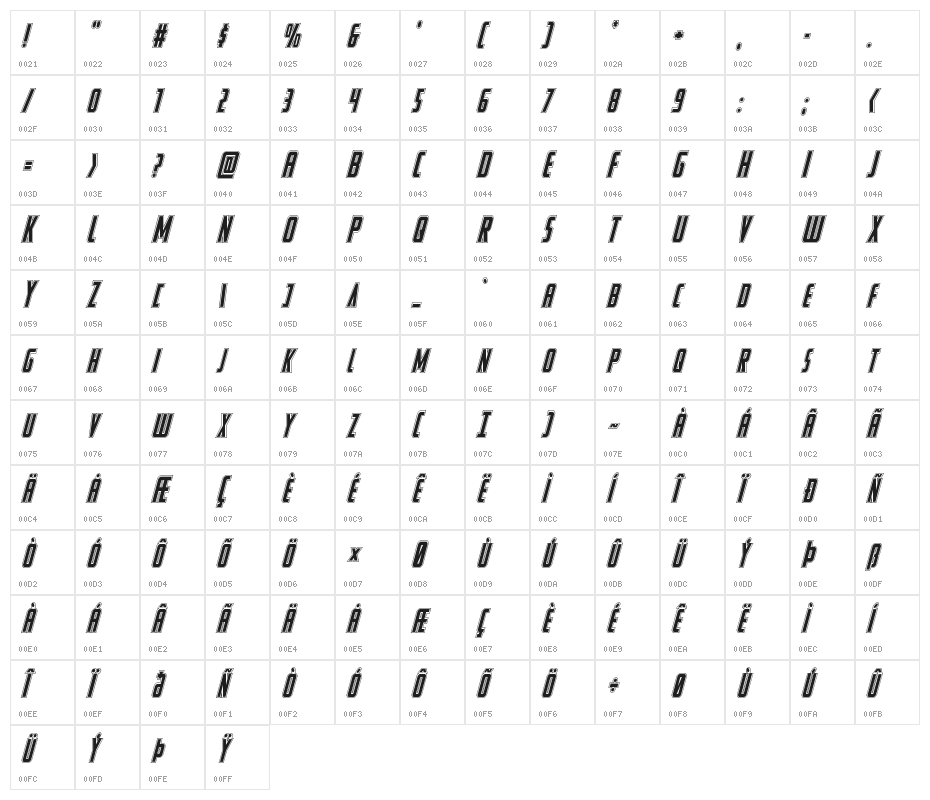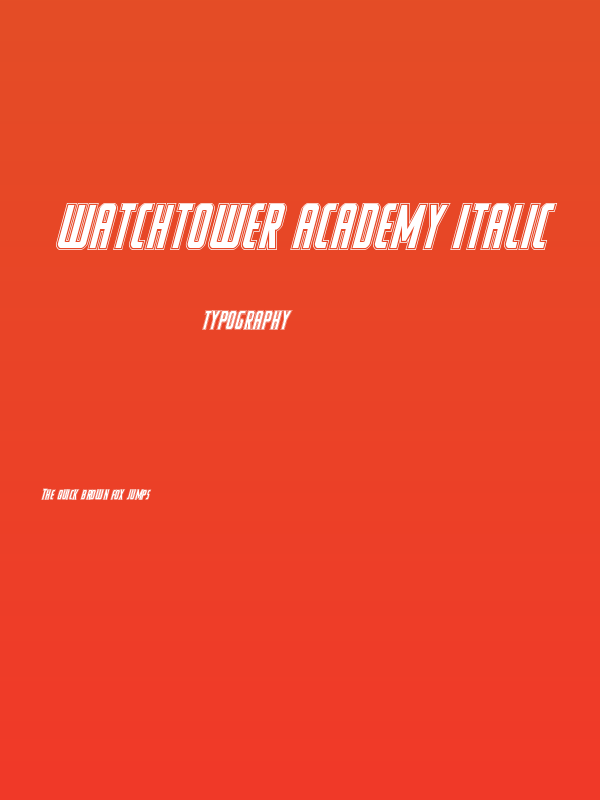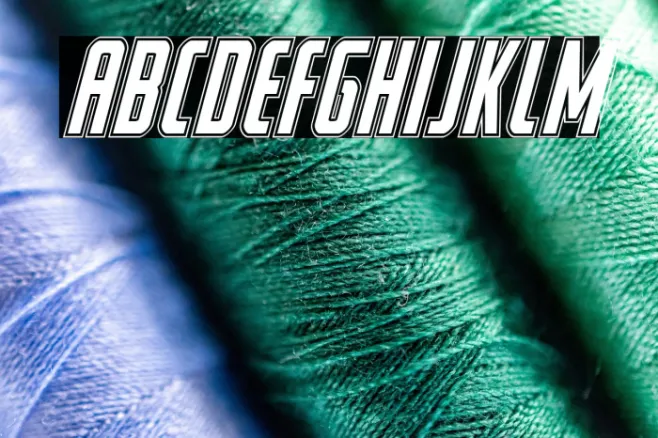
Watchtower Academy Italic Font
Watchtower Academy Italic Description
This font features a bold, italicized style with a strong, dynamic presence. The characters are outlined, giving them a three-dimensional effect that enhances their visibility and impact. The uppercase and lowercase letters maintain a consistent slant, contributing to a sense of motion and energy. The numerals and special characters are designed with the same boldness and italicization, ensuring uniformity across all text elements. The font's overall appearance is modern and sleek, making it suitable for projects that require a contemporary and eye-catching look.
| Proposed Projects | Ideal for sports branding, dynamic posters, modern advertisements, and eye-catching headlines. |